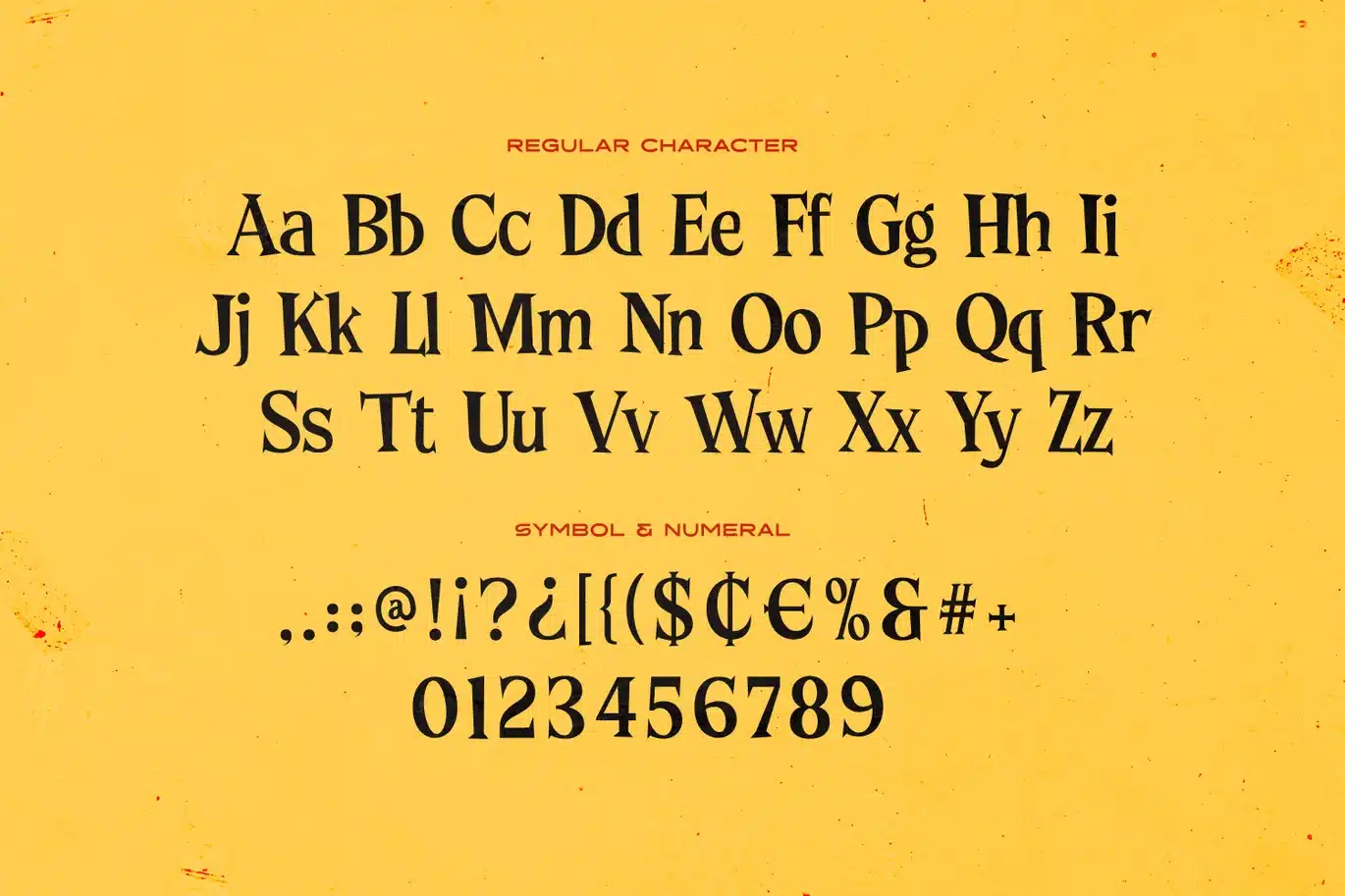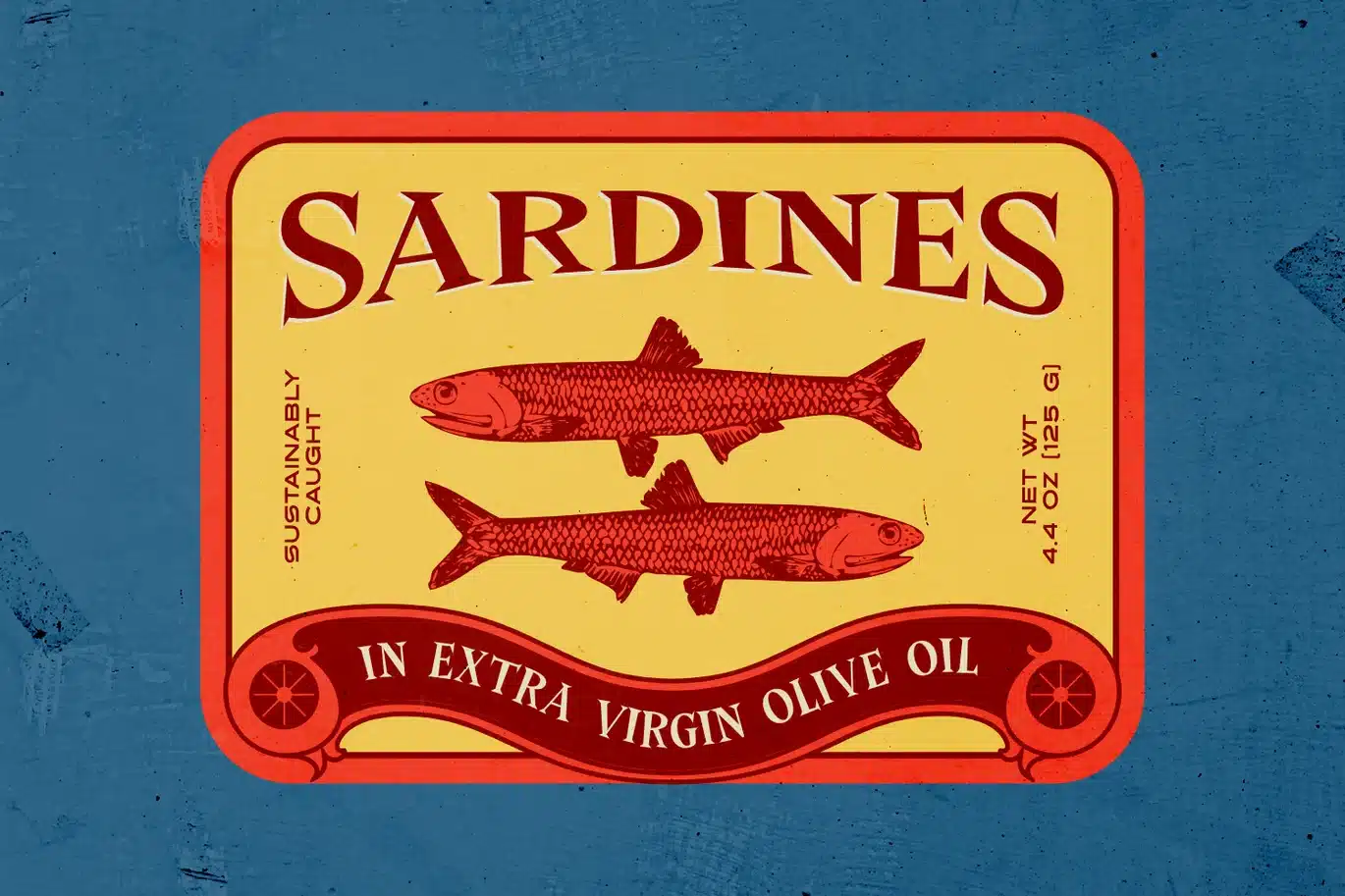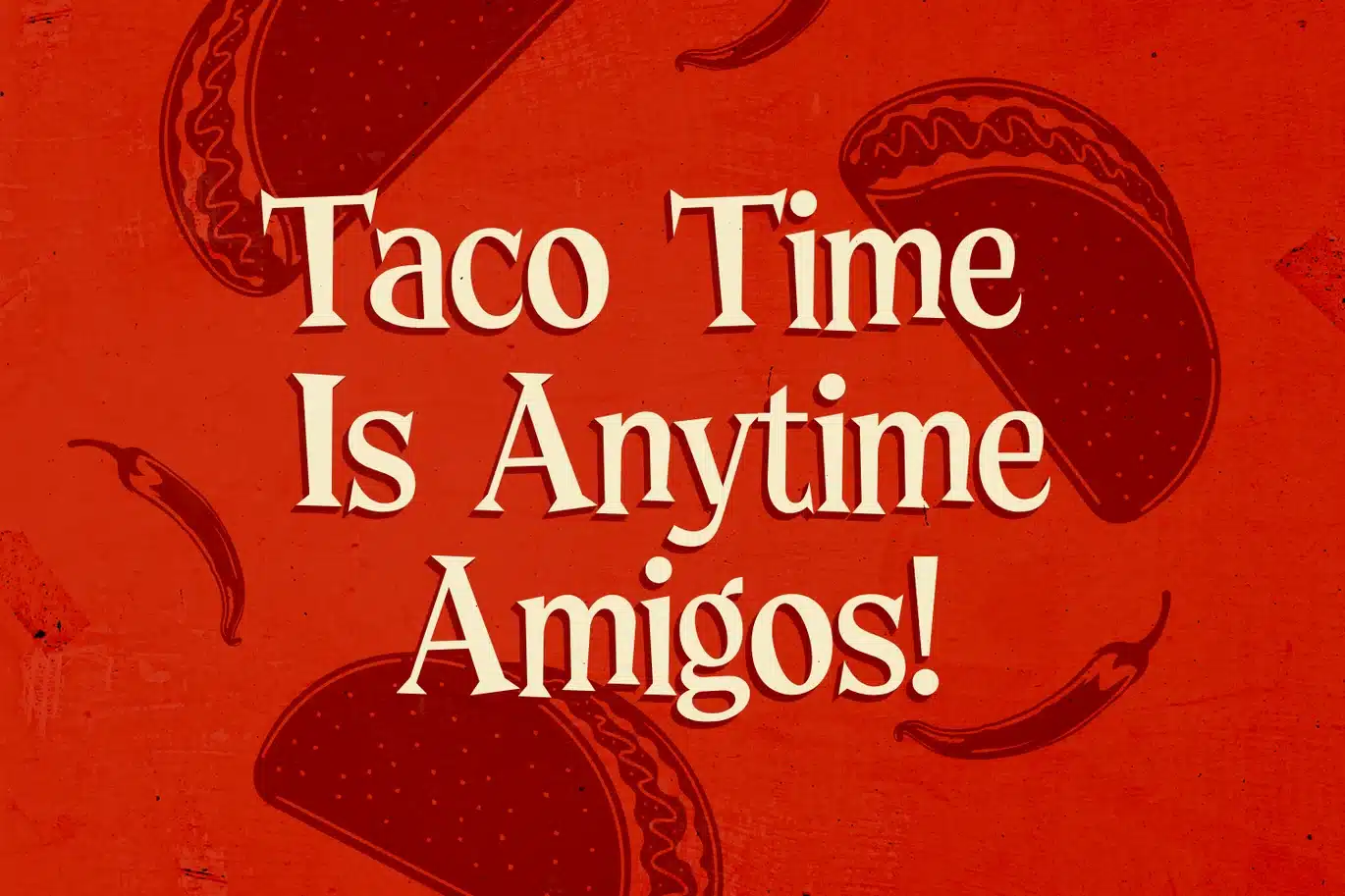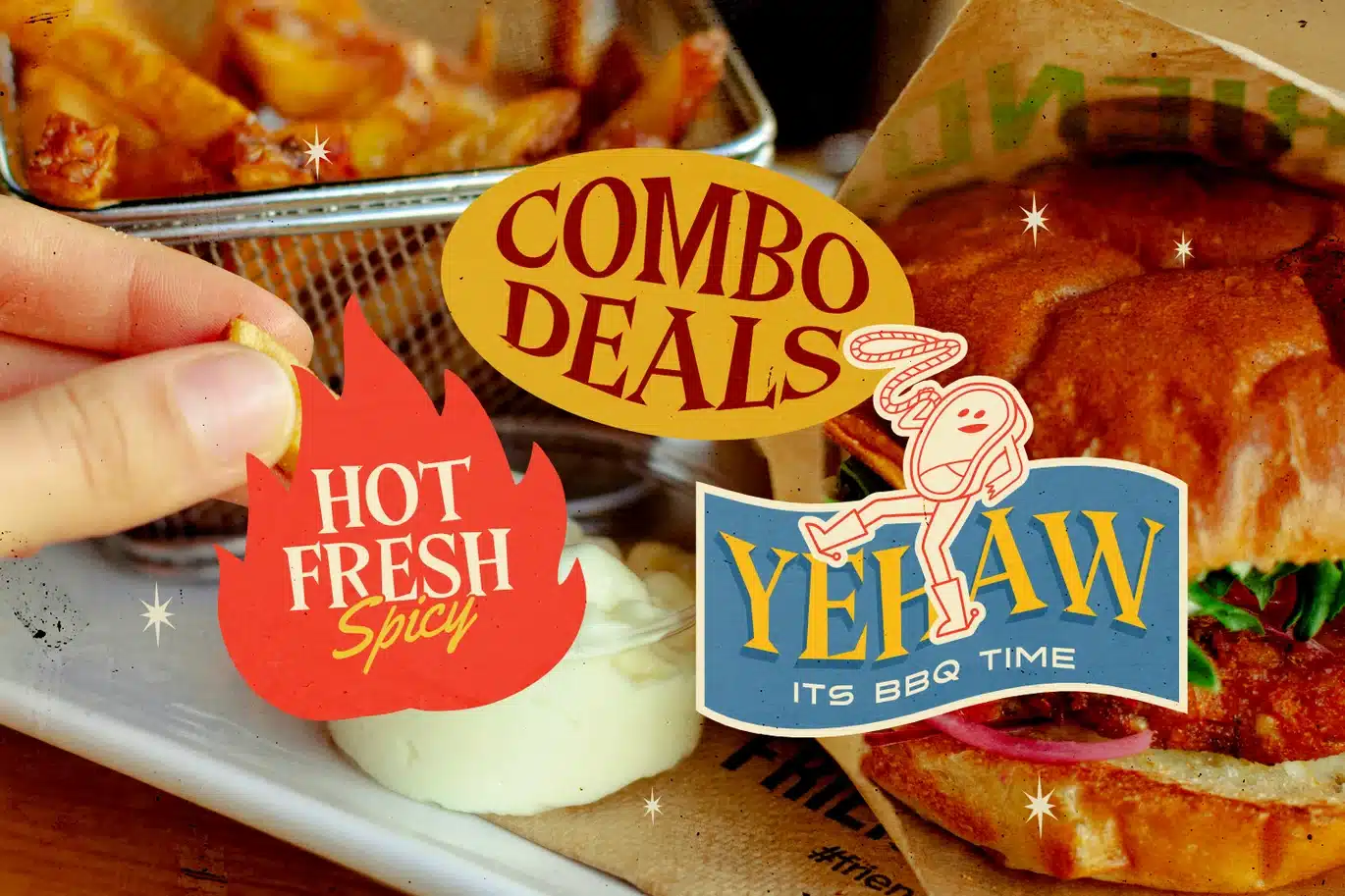
Sandwich – Food Font
Sandwich is a bold and versatile display font crafted to bring a fresh and appetizing feel into every food logo and brand identity. Inspired by the warmth of a busy kitchen and the charm of modern cafe culture, this typeface fits perfectly for coffee shops, bakery concepts, and restaurant visuals. Whether showcasing a juicy burger, sweet candy, or a slice of pizza, Sandwich delivers a strong yet friendly presence that makes every design look delicious and inviting.
Perfect for menu layouts, packaging, and promotional materials, Sandwich blends seamlessly into themes of ice desserts, rich chocolate treats, and creative cooking experiences. Its balanced and expressive style helps elevate any kitchen or food-related brand, making it ideal for both playful and professional concepts. From cozy cafes to bold restaurant branding, Sandwich adds a distinctive flavor that enhances every visual presentation and strengthens your brand identity.